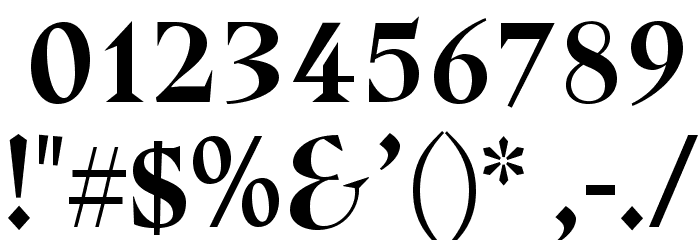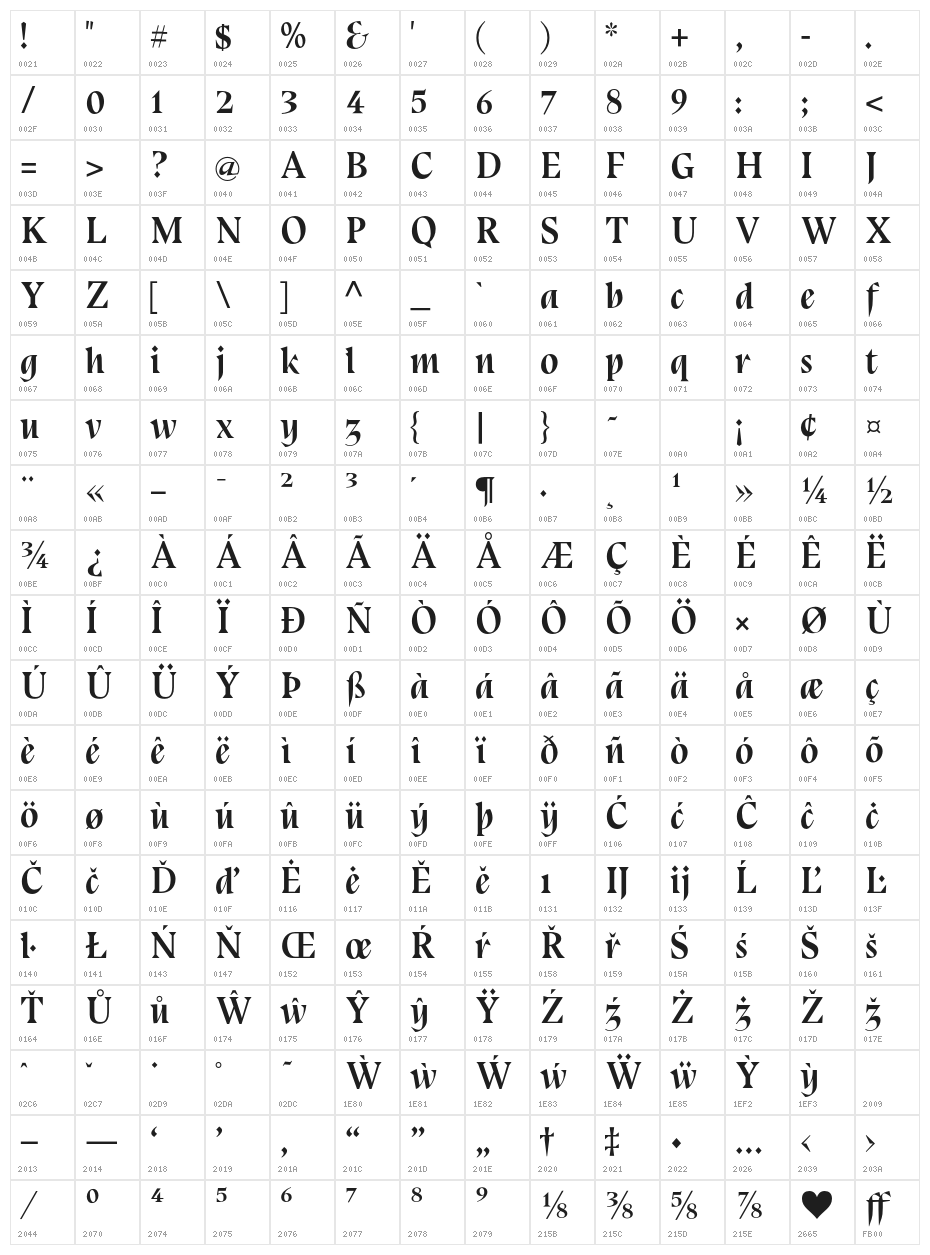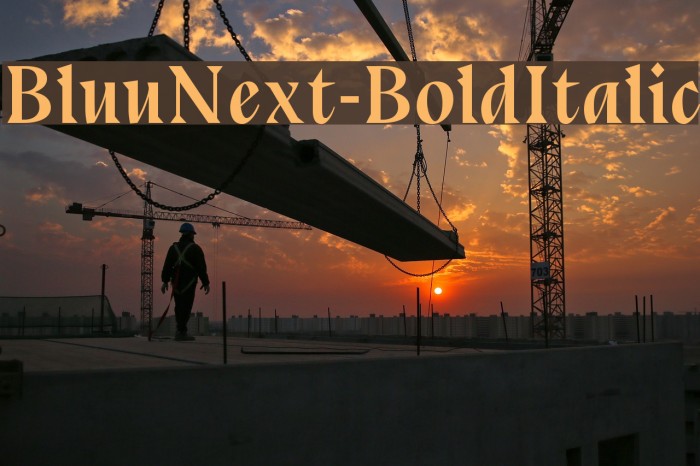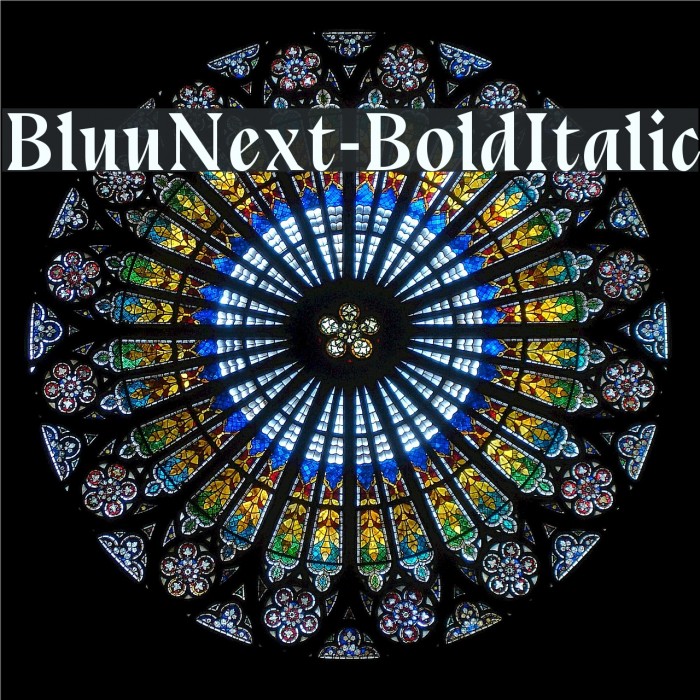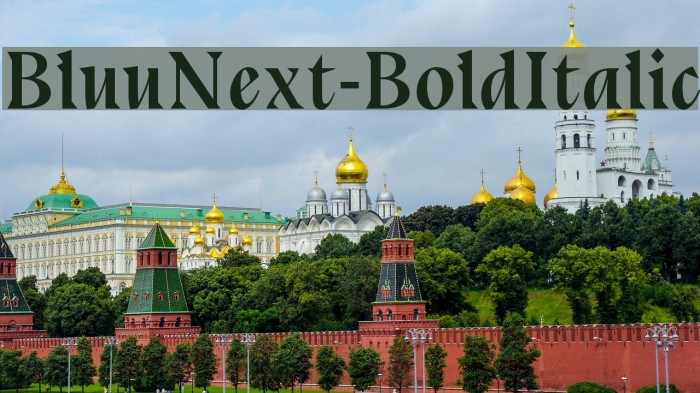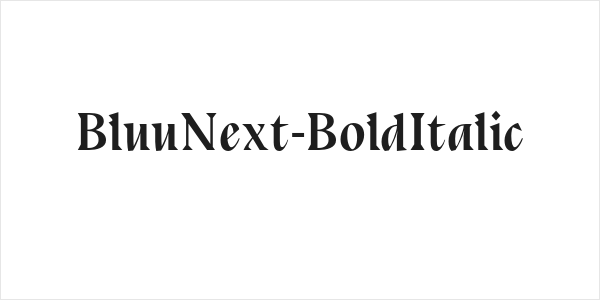
BluuNext-BoldItalic Font
BluuNext-BoldItalic Description
This font features a bold and dynamic style with a strong italic slant, creating a sense of movement and energy. The serifs are pronounced, adding a classic touch to the overall modern design. The characters are well-defined with sharp edges and a high contrast between thick and thin strokes, enhancing readability while maintaining a stylish appearance. The uppercase letters are tall and commanding, while the lowercase letters have a unique flair, particularly noticeable in the curved strokes. The numerals are consistent with the letterforms, providing a cohesive look across all characters. Special characters are elegantly integrated, making this font versatile for various applications.
| Proposed Projects | Ideal for branding, editorial design, and high-impact headlines. |